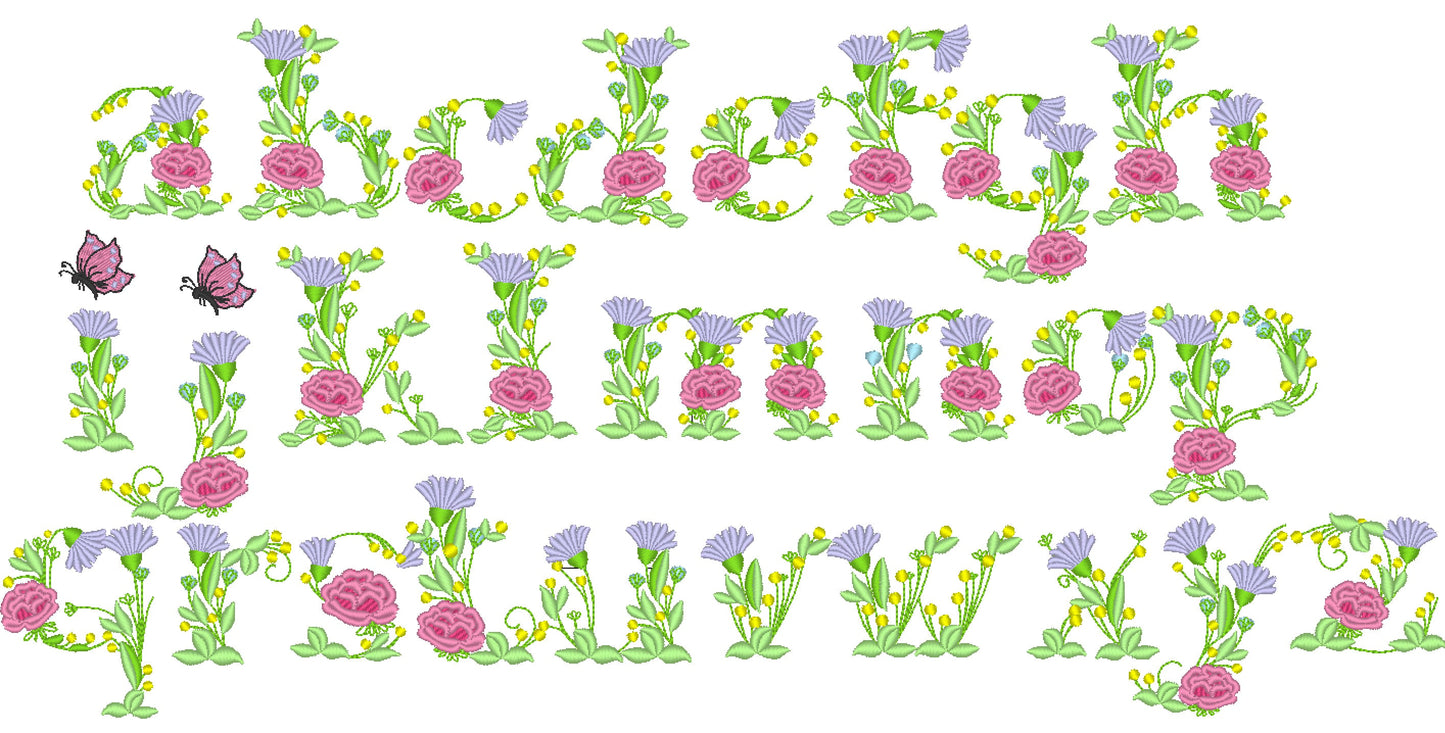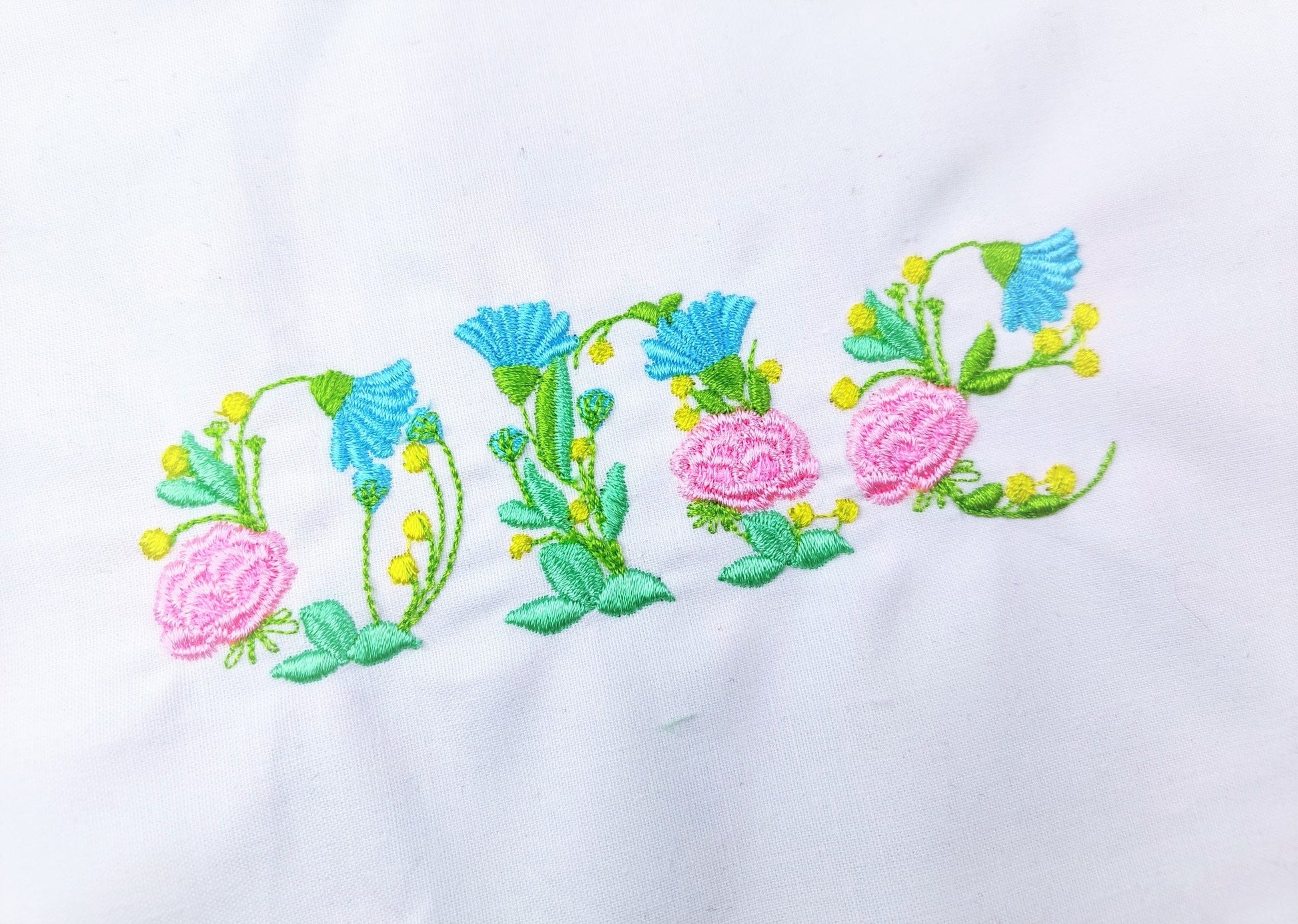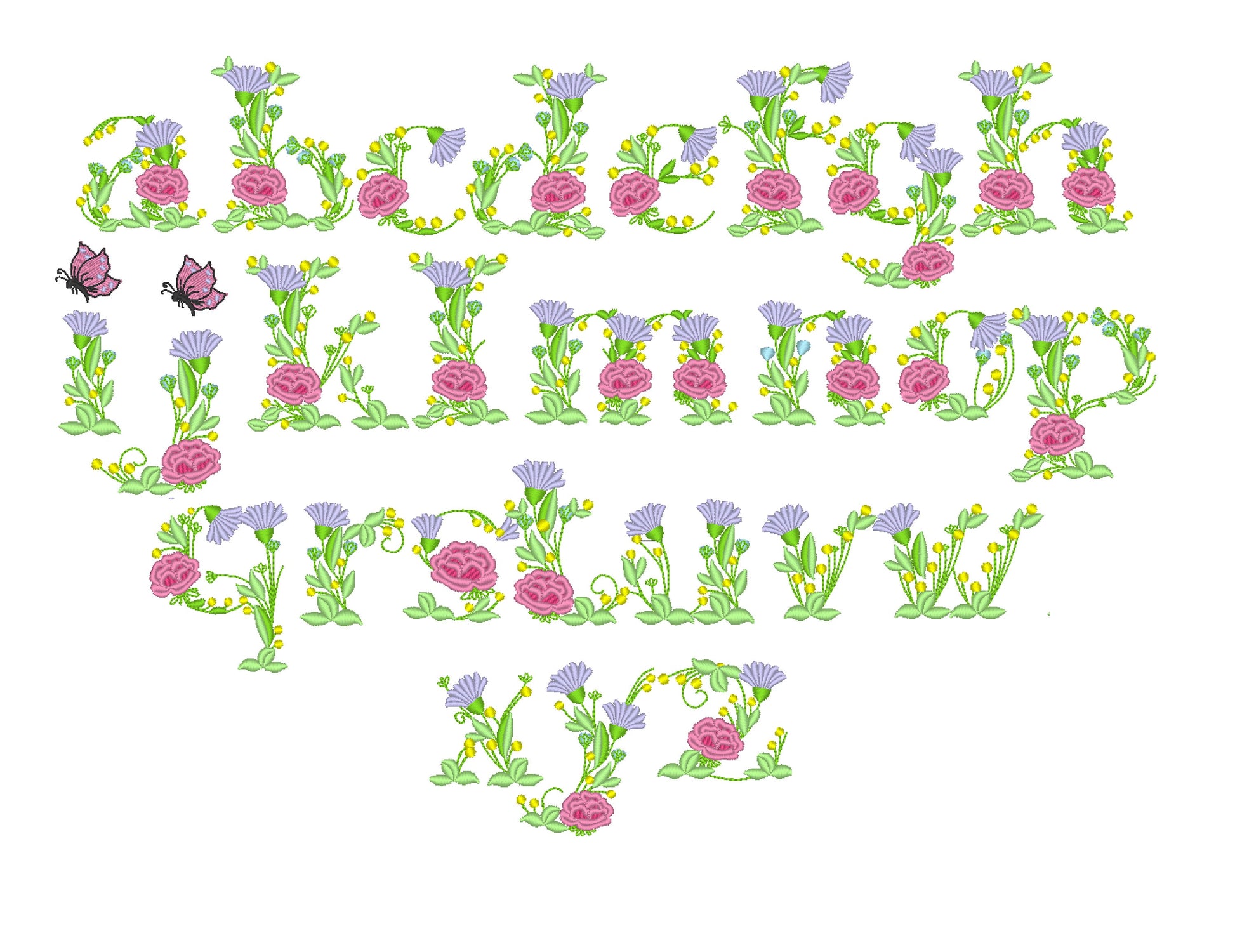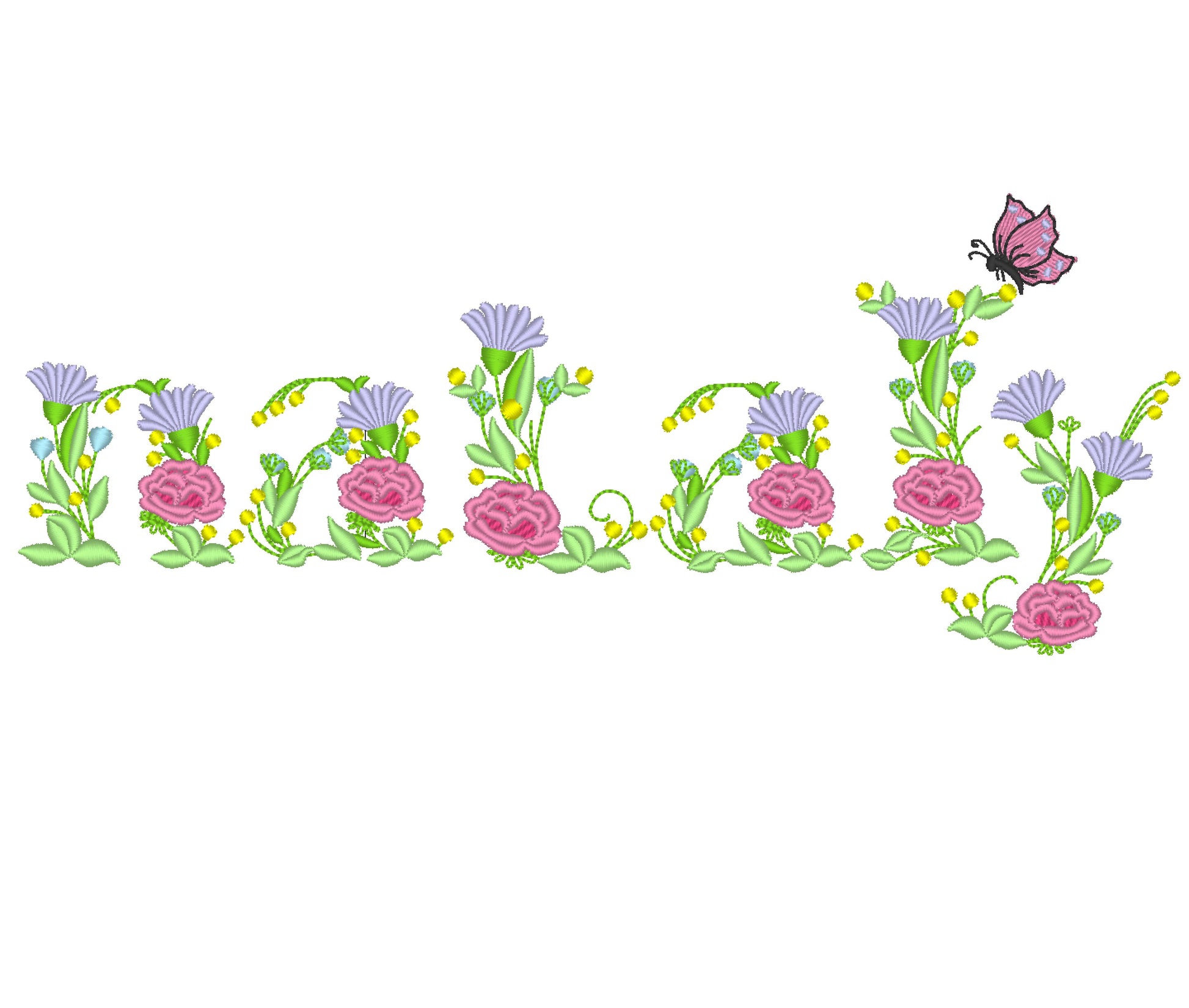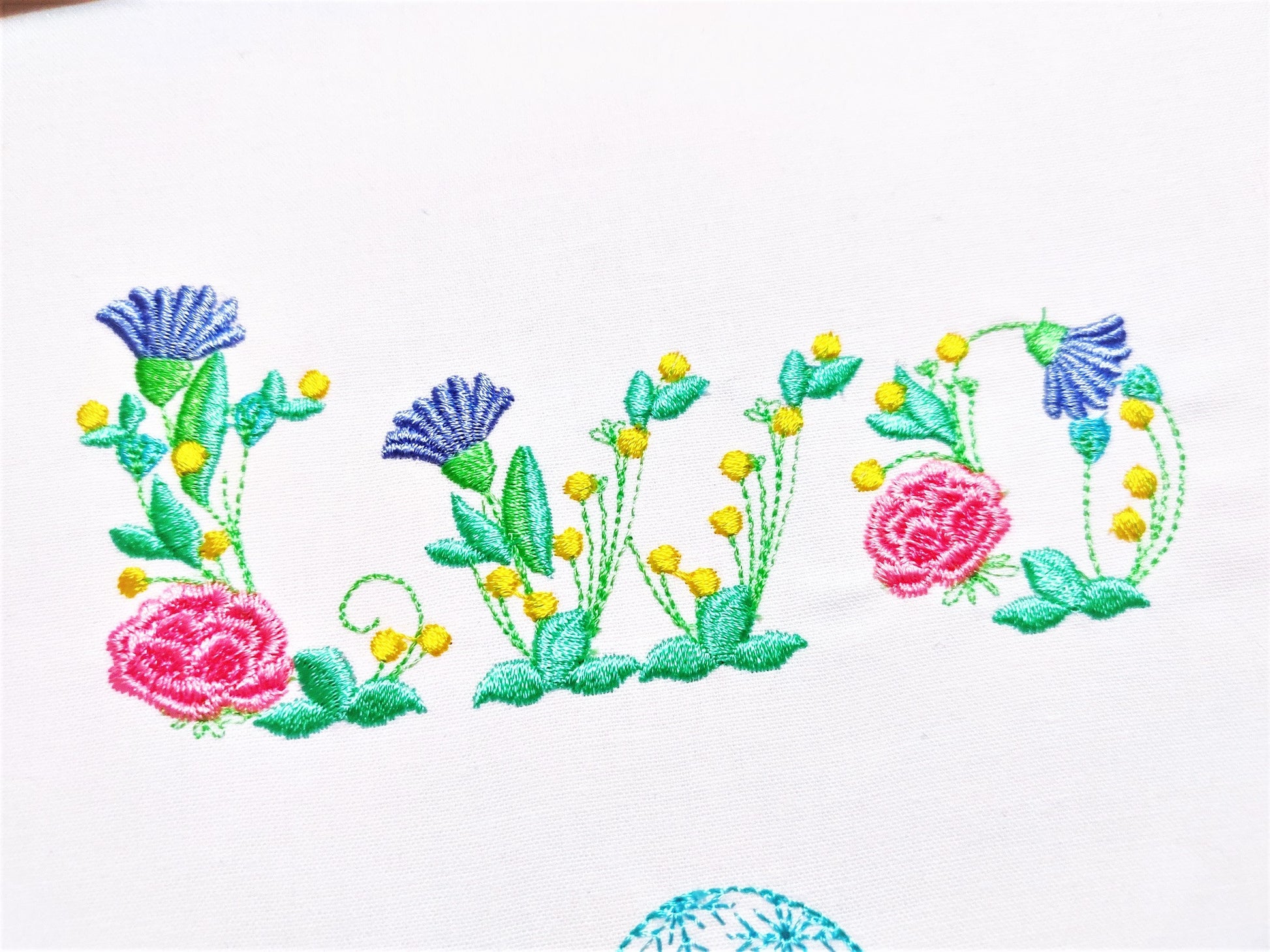
Floral Font Lowercase Letters A-Z
Or click to open the linkA floral block font in lowercase letters, decorated with flowers. Pretty for girls' names, summer monograms and gifts.
All 26 lowercase letters, a to z, in five sizes: 1.3, 1.7, 2, 2.5 and 3 inches. Each block letter is decorated with flowers.
- Floral block font, lowercase
- Lowercase a to z
- 5 sizes, 1.3 to 3 in